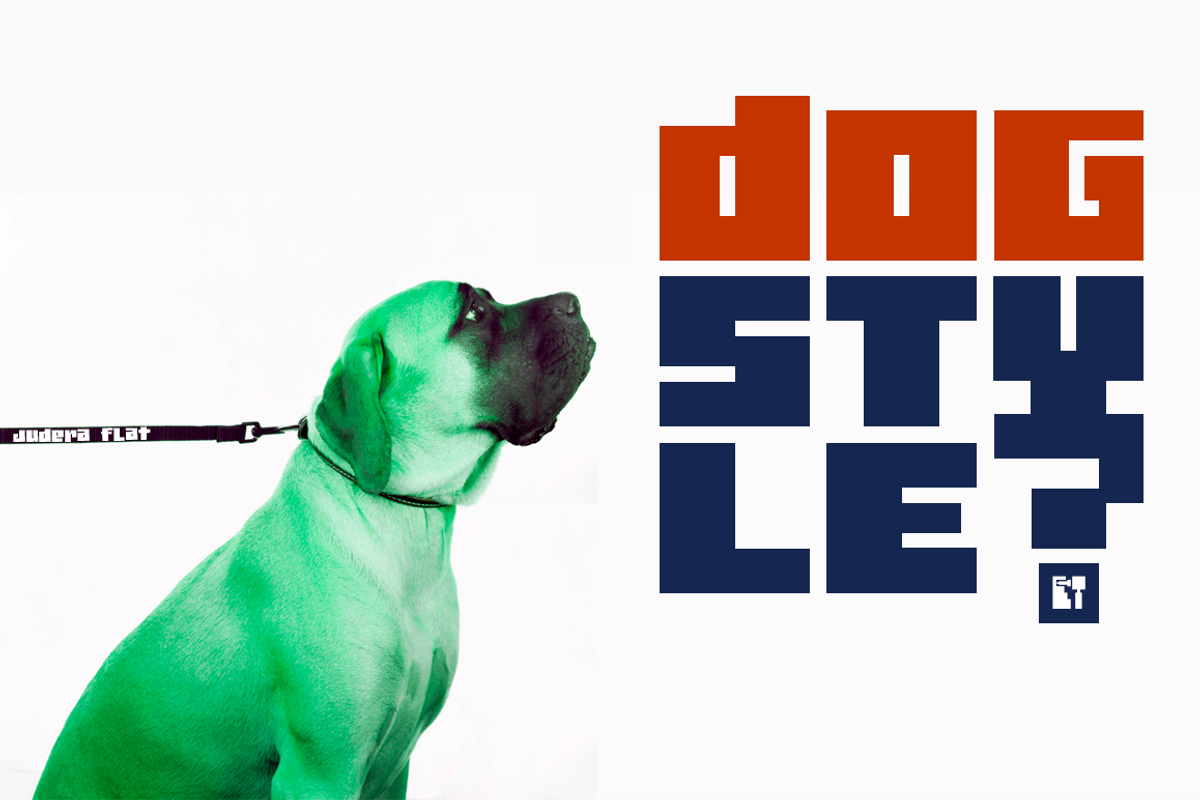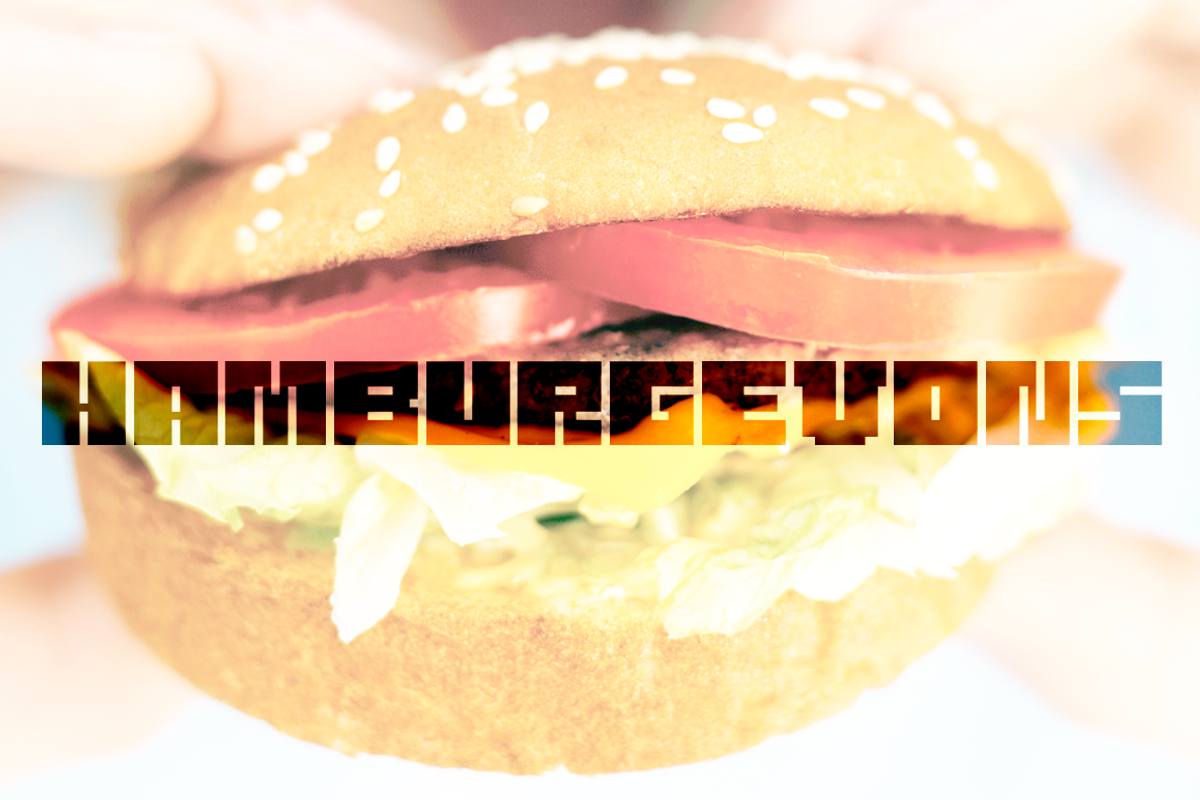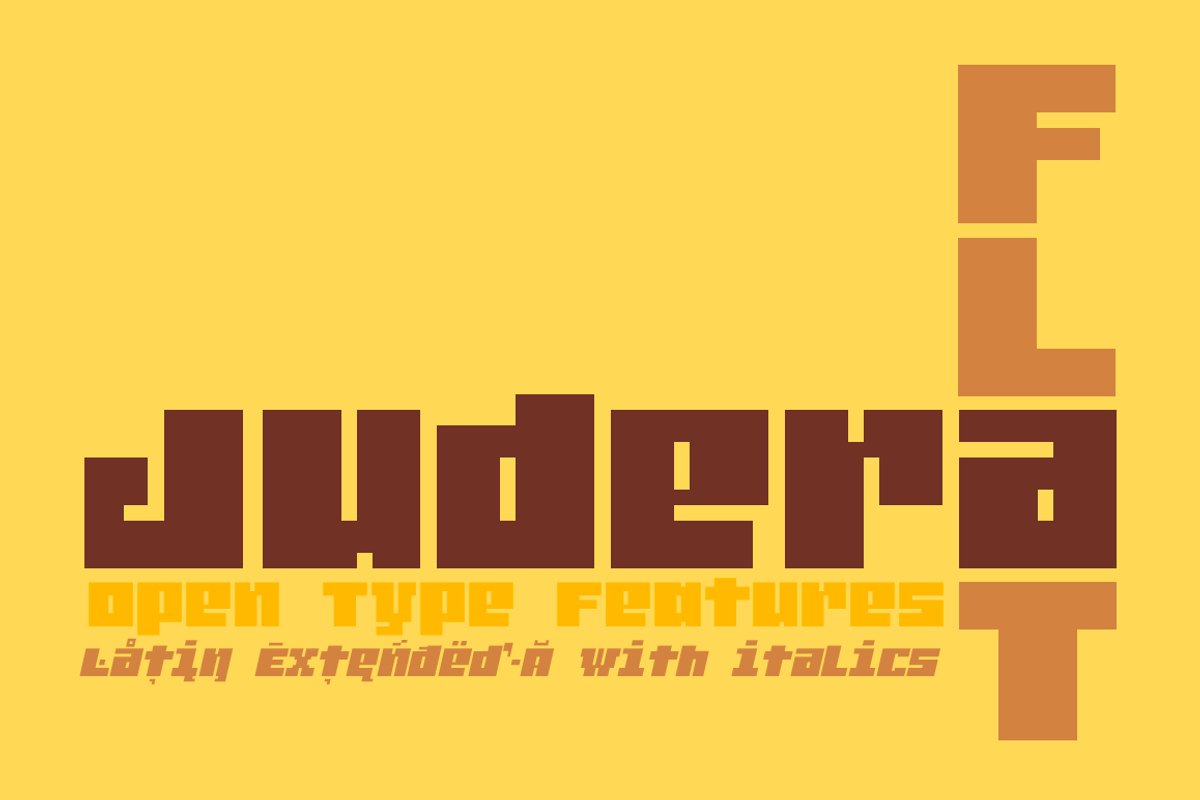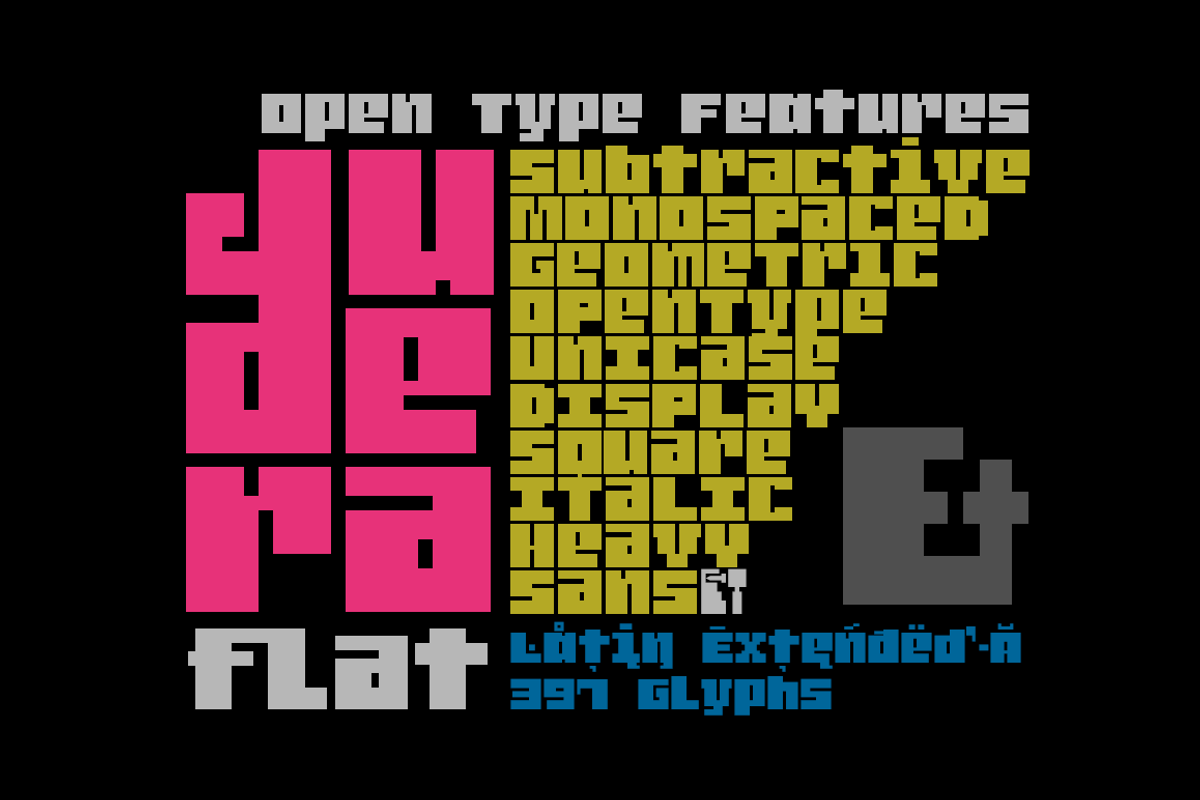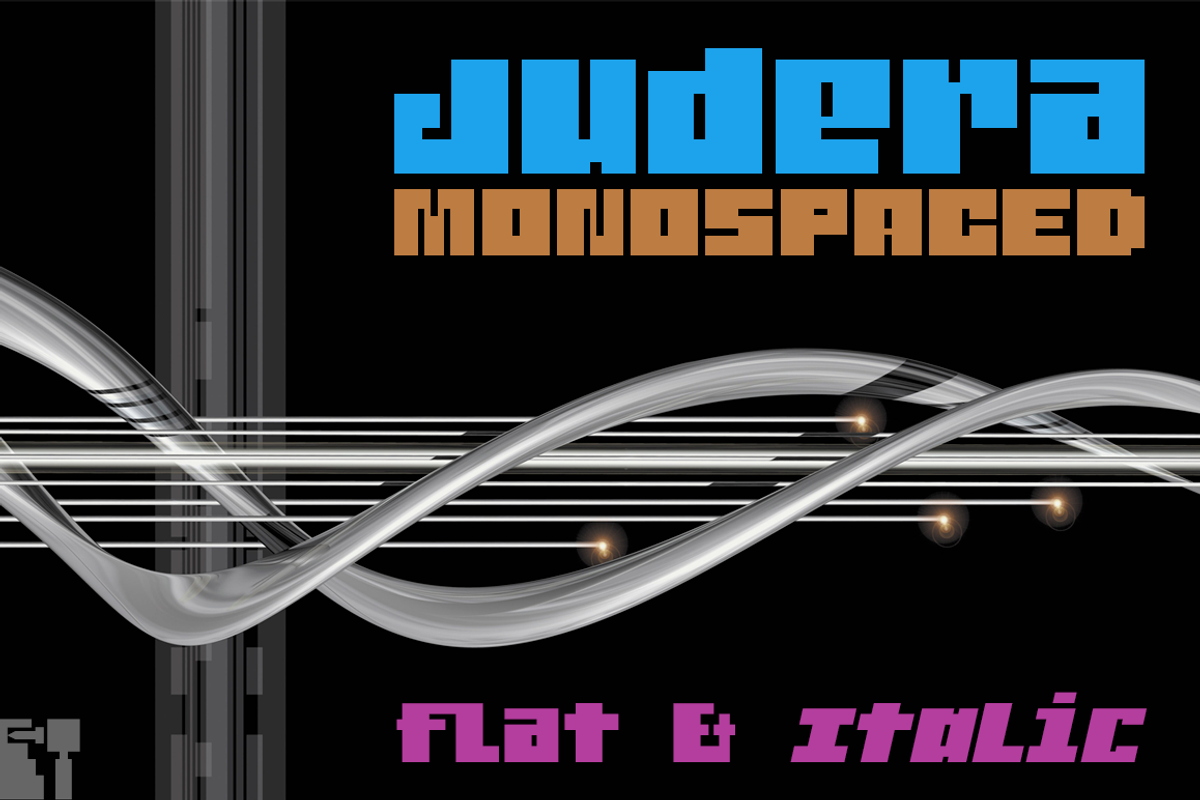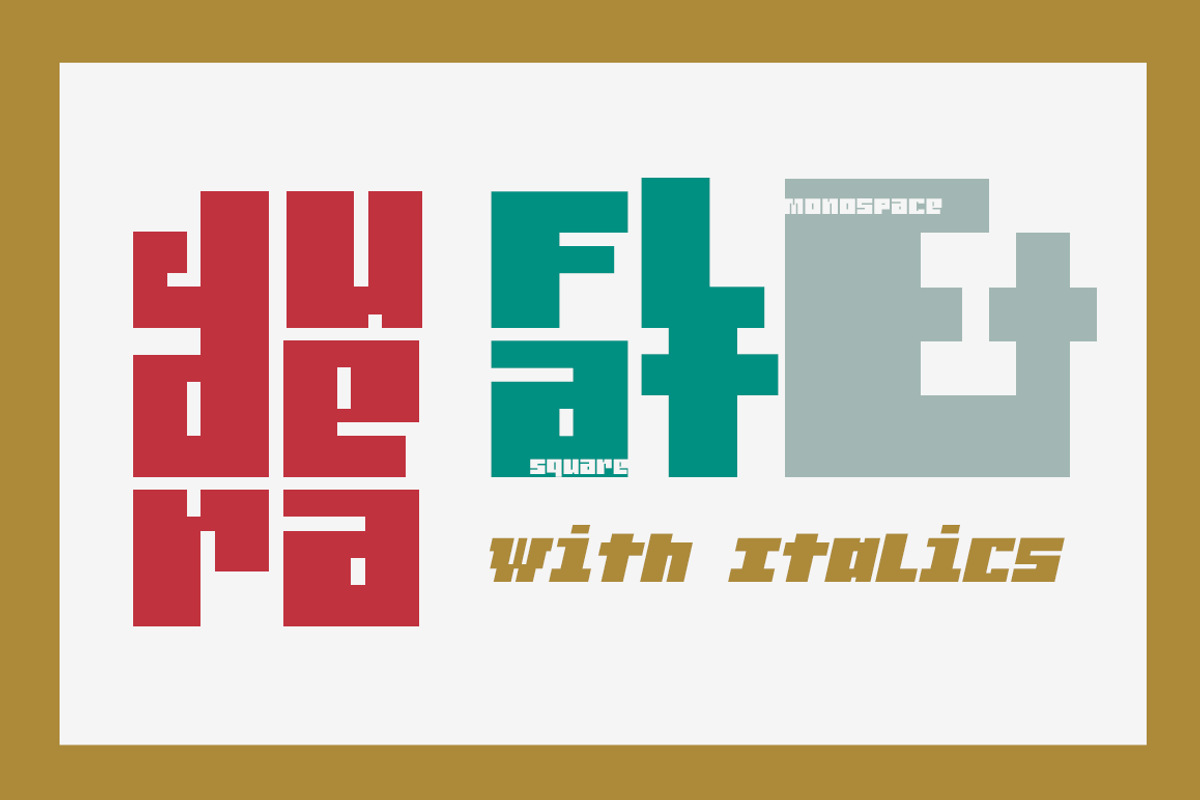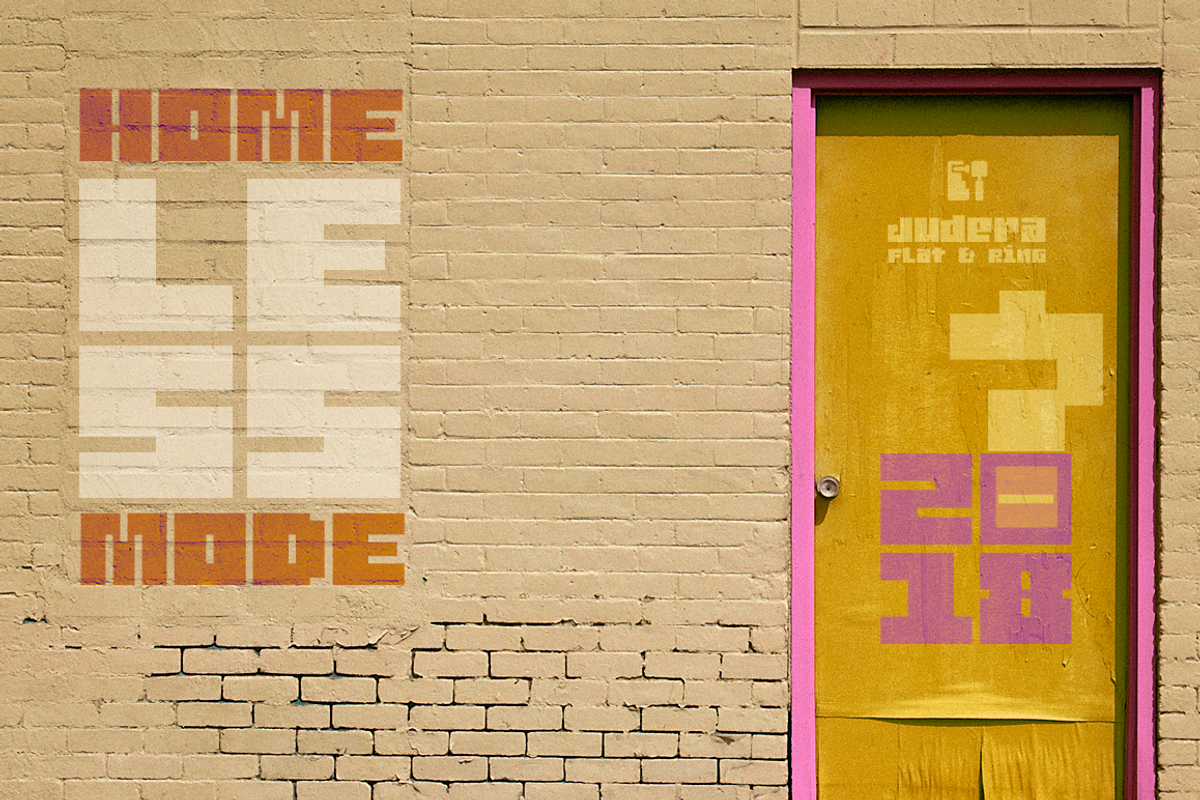
Judera Flat [2 fonts]
Judera Flat is an unicase and monospaced experimental typography of subtractive geometric construction with italics which have a 13° inclination.Font of straight lines with all angles at 90°.
Use the following keys to write the bitcoin symbol: a#
- OpenType Features: Additional languages, All Alternates, Unicase, Standard Ligatures, Localized Forms, Discretionary Ligatures, Historical Forms, Slashed Zero.